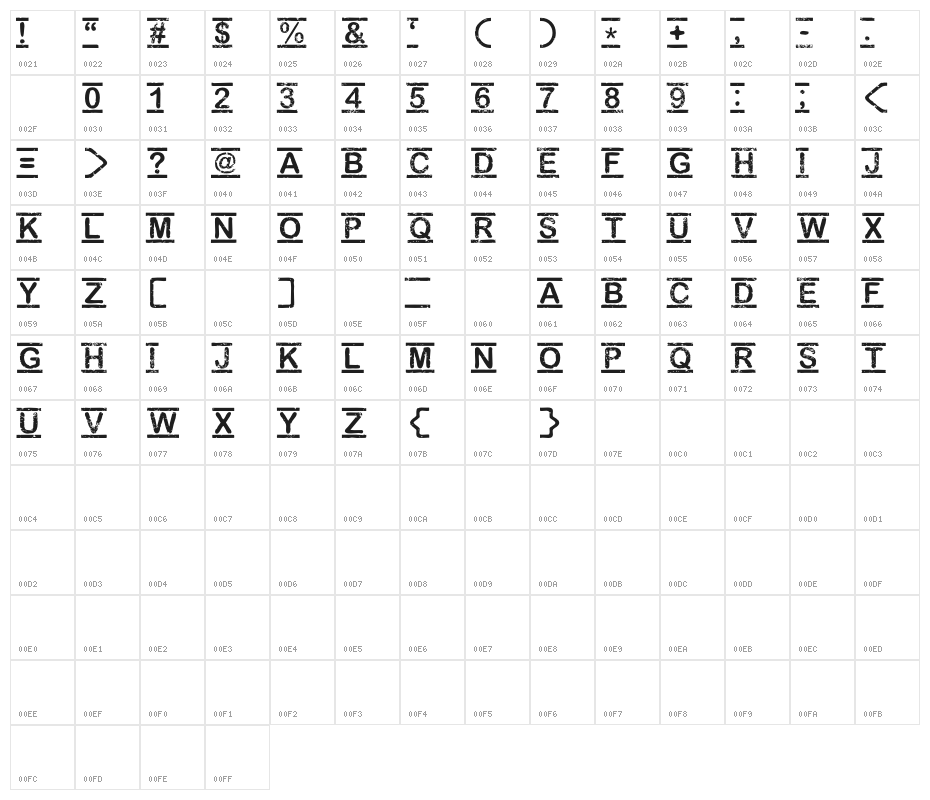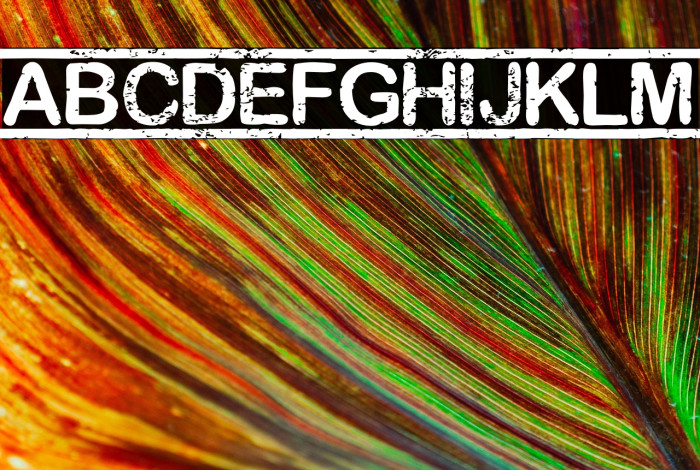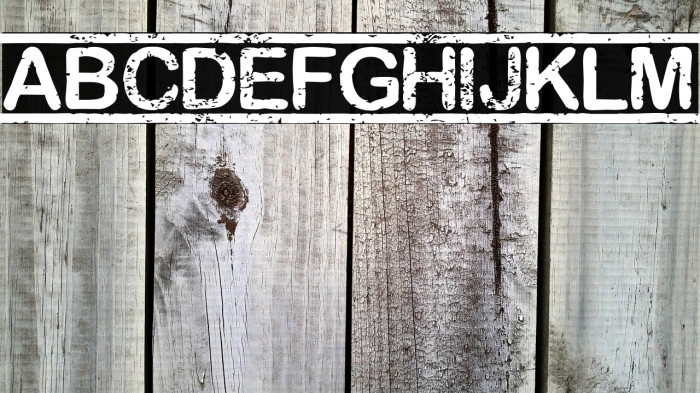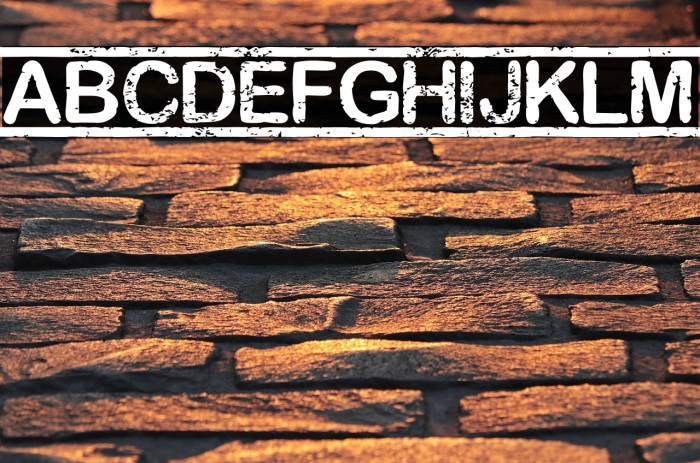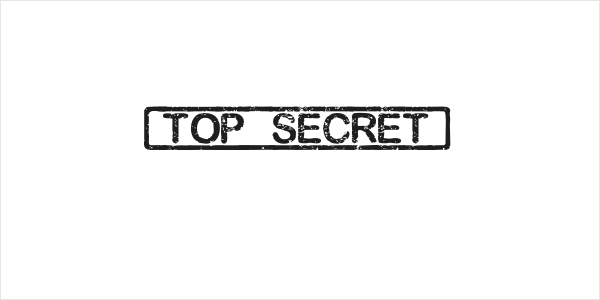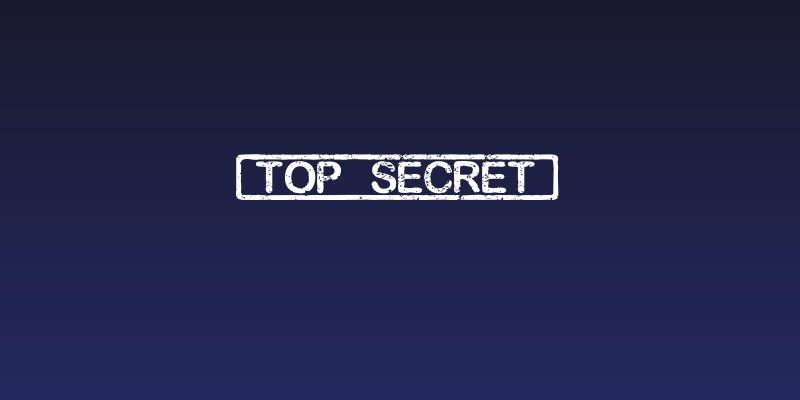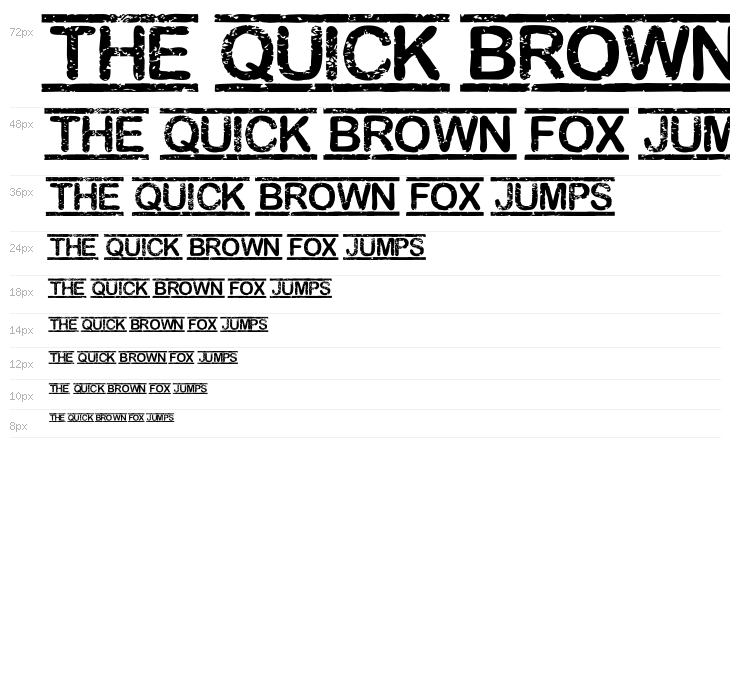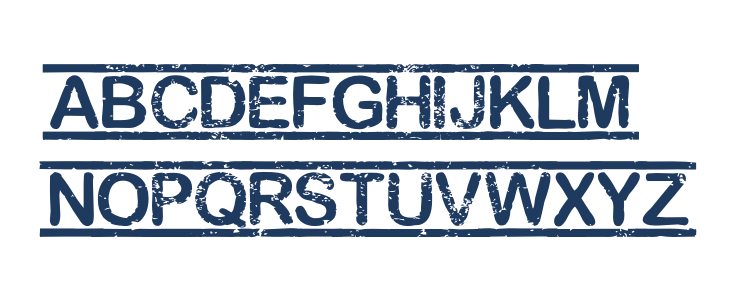
[TOP_SECRET] Font
[TOP_SECRET] Description
This font features a bold, distressed style with a stencil-like appearance. The characters are uppercase and have a rugged, worn texture, giving them a vintage, industrial feel. The design is reminiscent of old typewriter or military stencil fonts, with a strong emphasis on boldness and visibility. The letters are evenly spaced, maintaining a consistent width throughout, which enhances readability despite the distressed effect. The numbers and special characters share the same rugged texture, making them suitable for designs that require a cohesive, gritty aesthetic.
| Use Case | Logos, Posters, Branding |
| Proposed Projects | Ideal for projects needing a rugged, vintage look, such as posters, logos, or branding for industrial-themed products. |